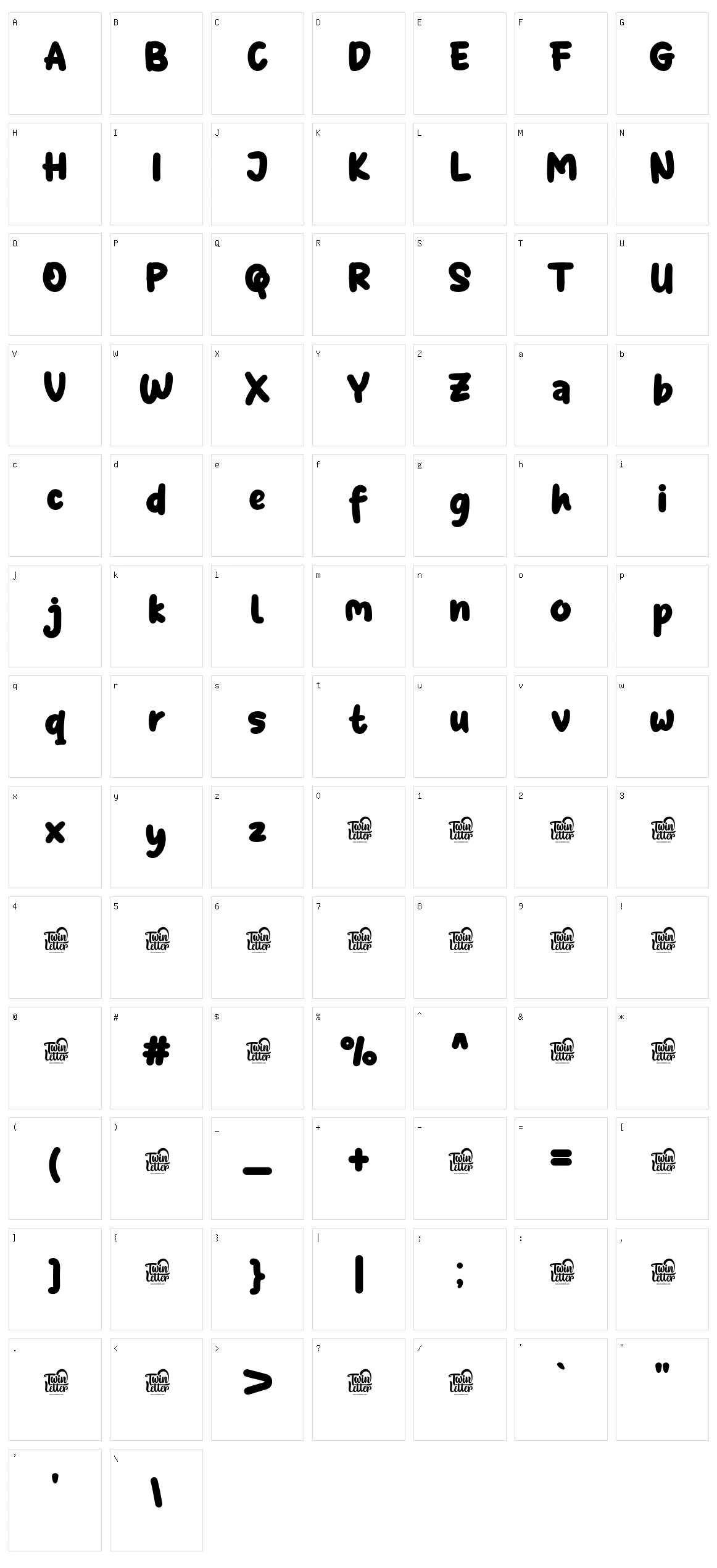
The free font Shyest is carefully designed by twinletter, showcasing a thoughtful balance of creativity and usability and falls under the Cartoon font style. When you download the ZIP file, it contains only 74.51 KB of font files, making it lightweight and quick to download. Please review the license details below to understand permitted usage and distribution rights. If license information is not available, we recommend using this font for personal projects only or contacting the author directly for commercial usage permissions.